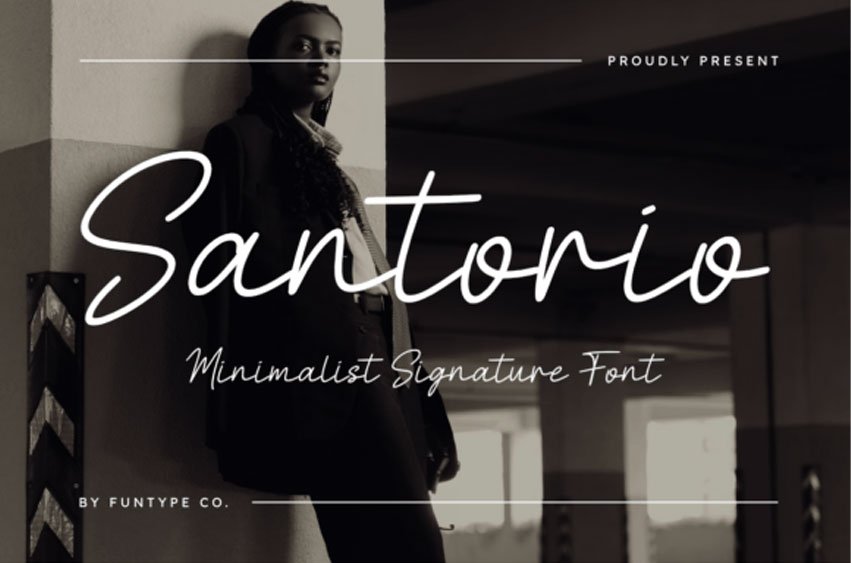
Santorio Font is a beautiful and elegant minimalist signature font designed for impactful and intimate typography. With its refined structure and natural flow, this font is perfect for wedding invitations, photography watermarks, chic branding, and modern lifestyle logos.
Its clean and sophisticated design gives your visuals a striking, professional, and heartfelt look. Provided in OTF and TTF formats for maximum compatibility across all design platforms.